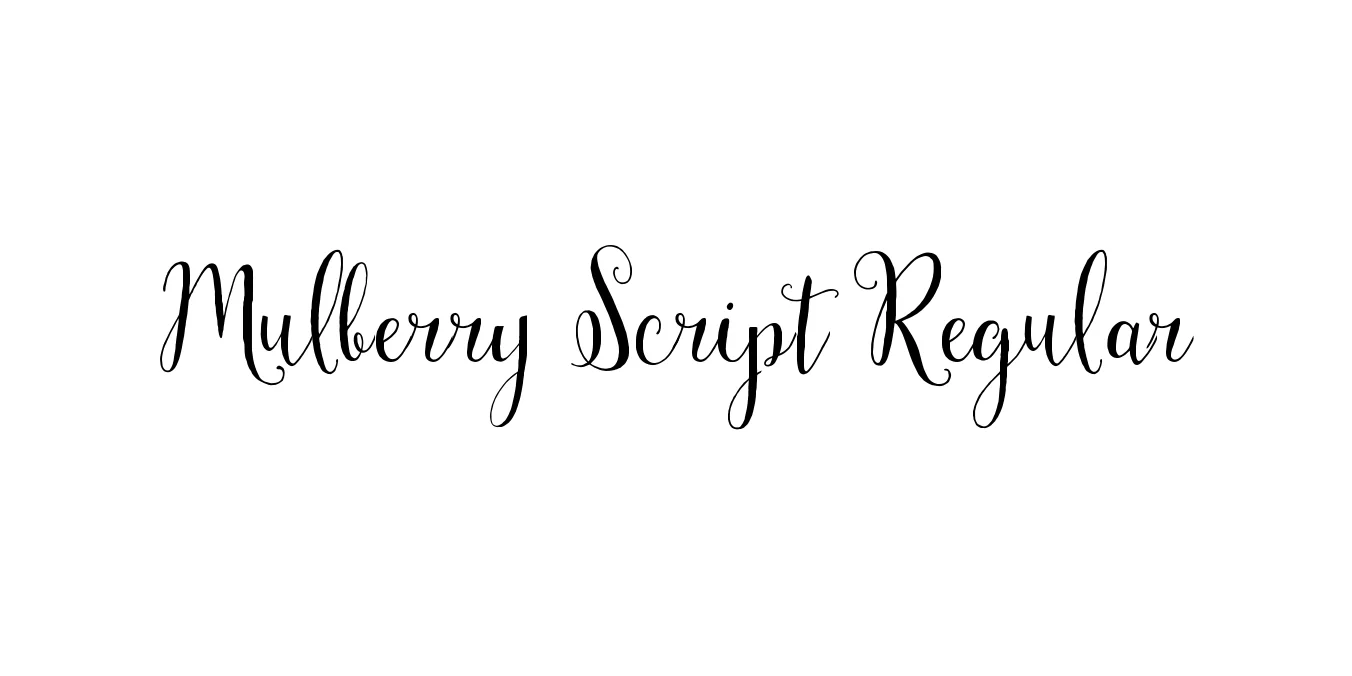
Mulberry Script Regular
Designed by Cindy Kinash (Cultivated Mind)
Mulberry Script Regular is a charming, hand-lettered calligraphy typeface designed by Cindy Kinash of Cultivated Mind. Released around 2014, this font captures a whimsical and romantic spirit through its delicate strokes and elegant flourishes. It was crafted to mimic authentic ink-on-paper handwriting, making it a popular choice for designers seeking a personal, high-end feel for their creative projects.
The font includes a variety of alternates, ligatures, and extra flourishes that allow for a custom, hand-drawn appearance. Its versatile nature makes it suitable for both digital and print media, particularly in industries related to weddings, boutique branding, and editorial design. Mulberry Script continues to be a staple for those looking to add a touch of sophisticated warmth to their typography.
Mulberry Script Regular Best Uses
Perfect for creating elegant and personal stationery.
Ideal for boutique logos and high-end product packaging.
Great for romantic quotes and aesthetic lifestyle posts.
Adds a sophisticated touch to magazine headlines and layouts.